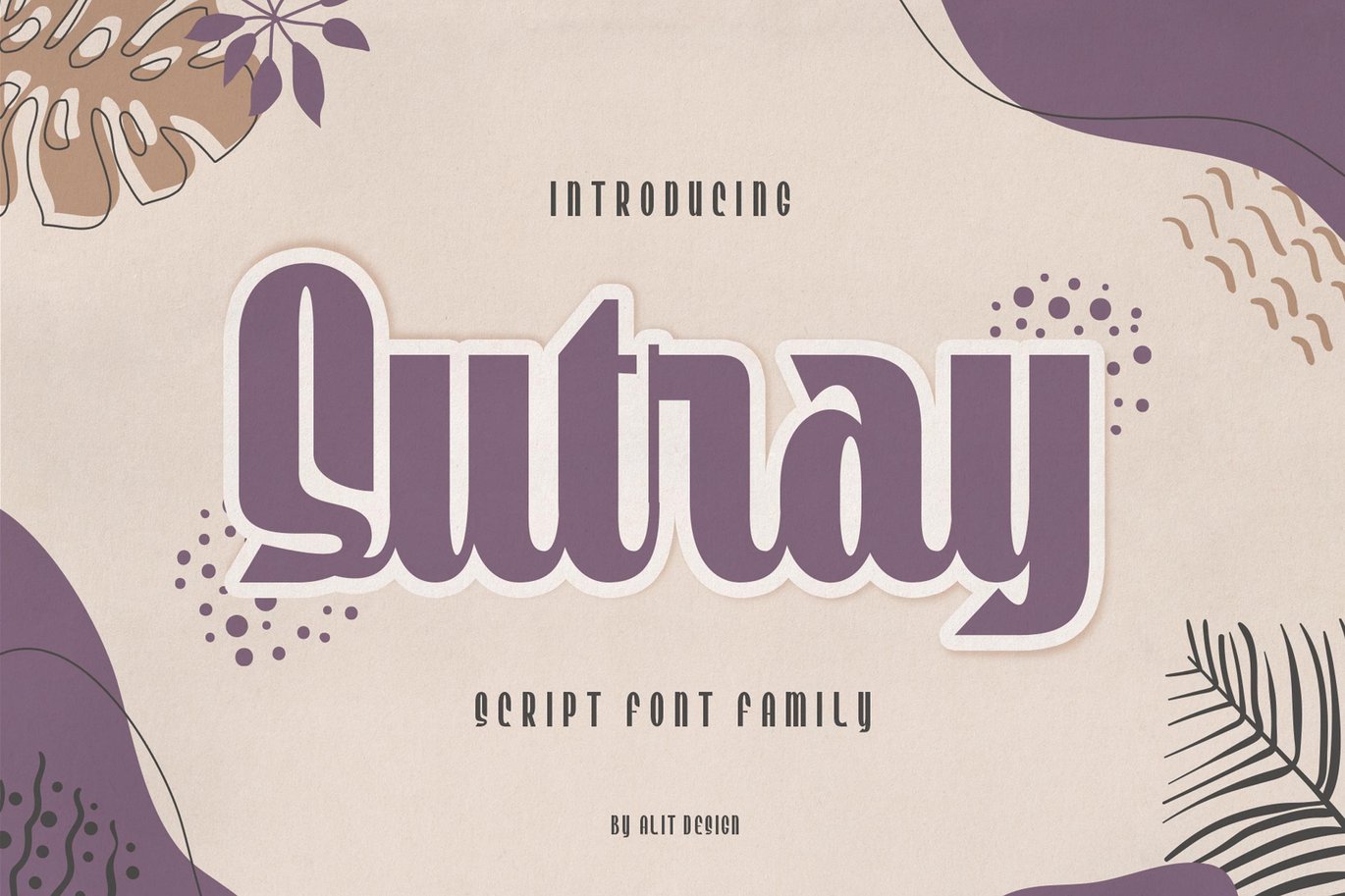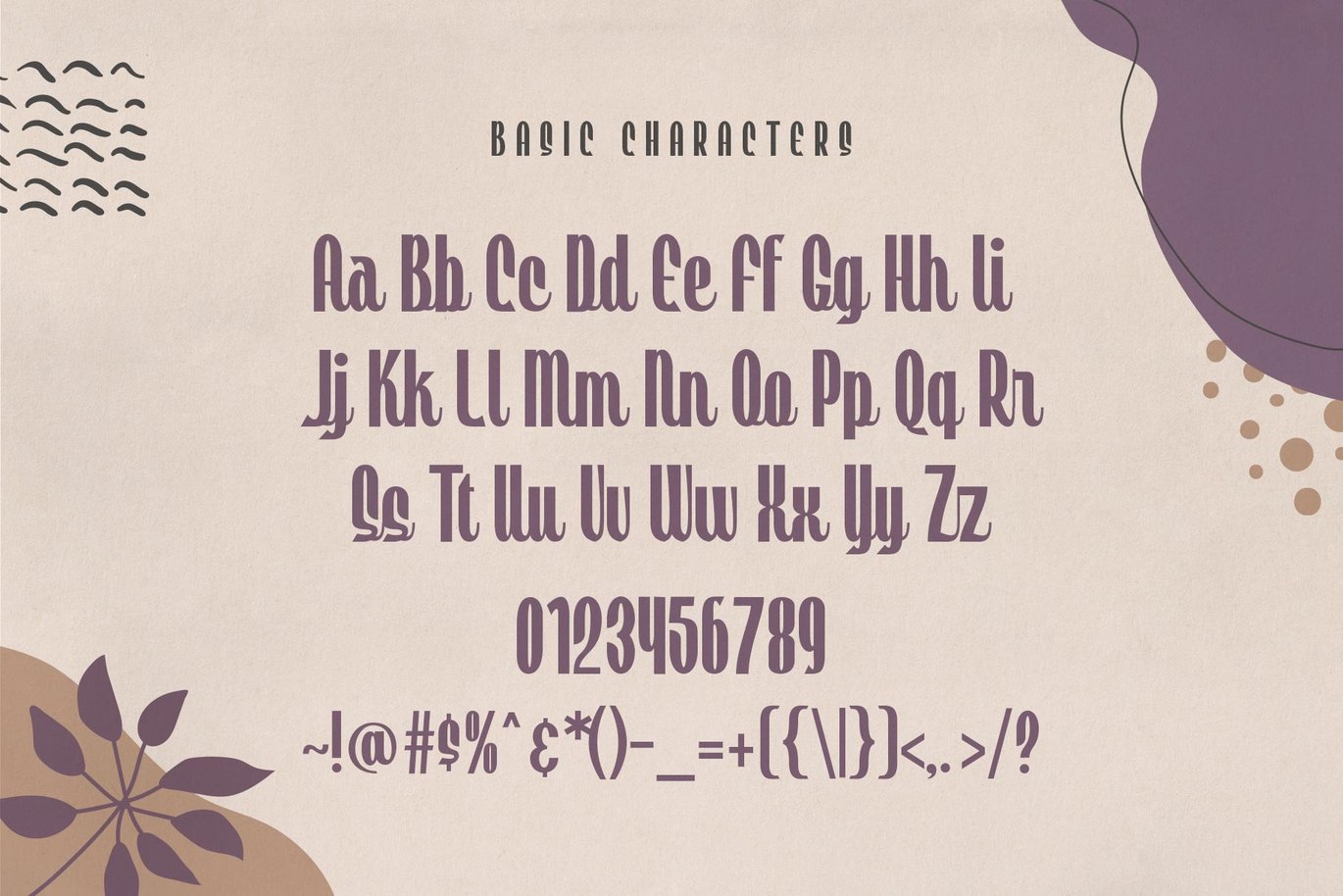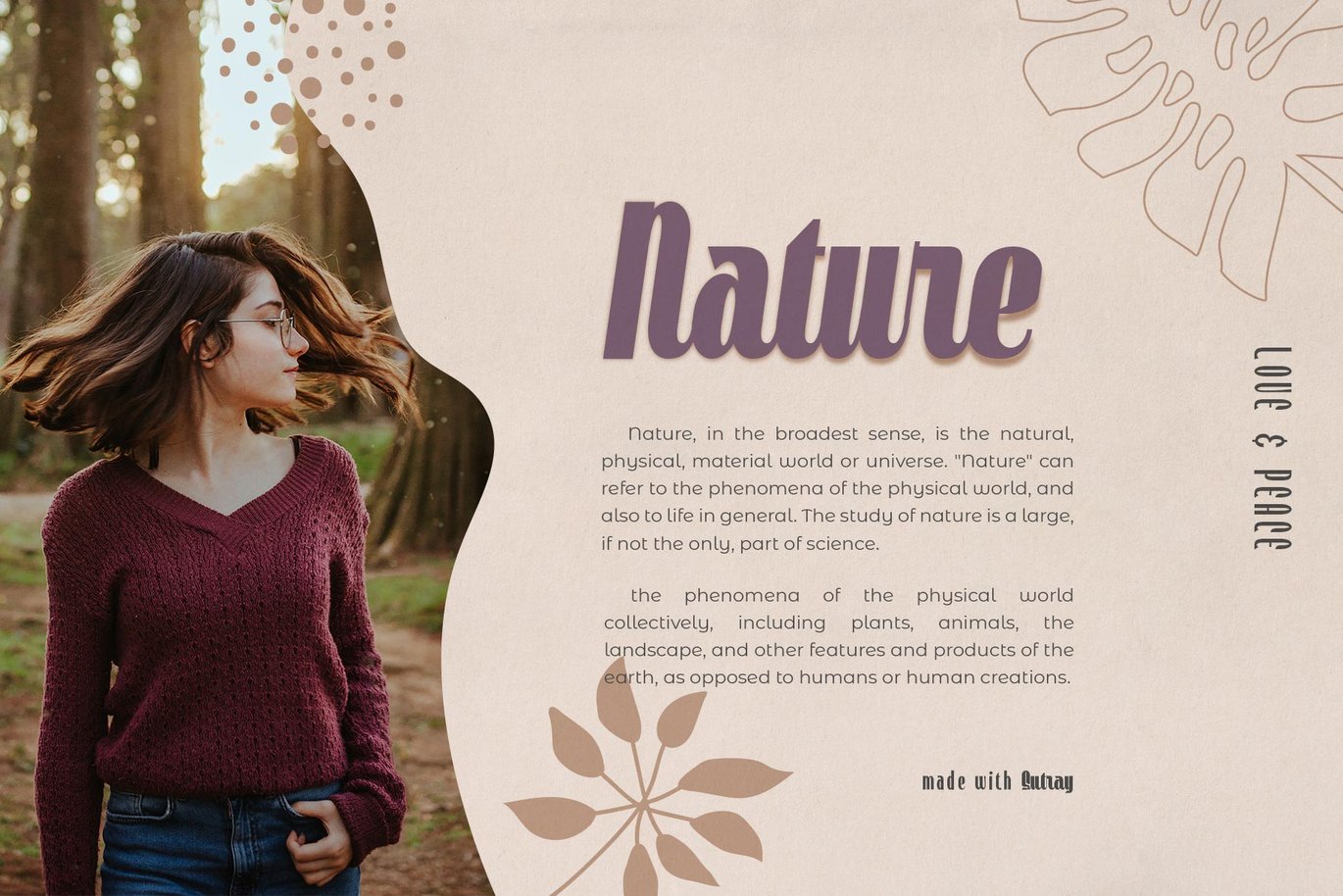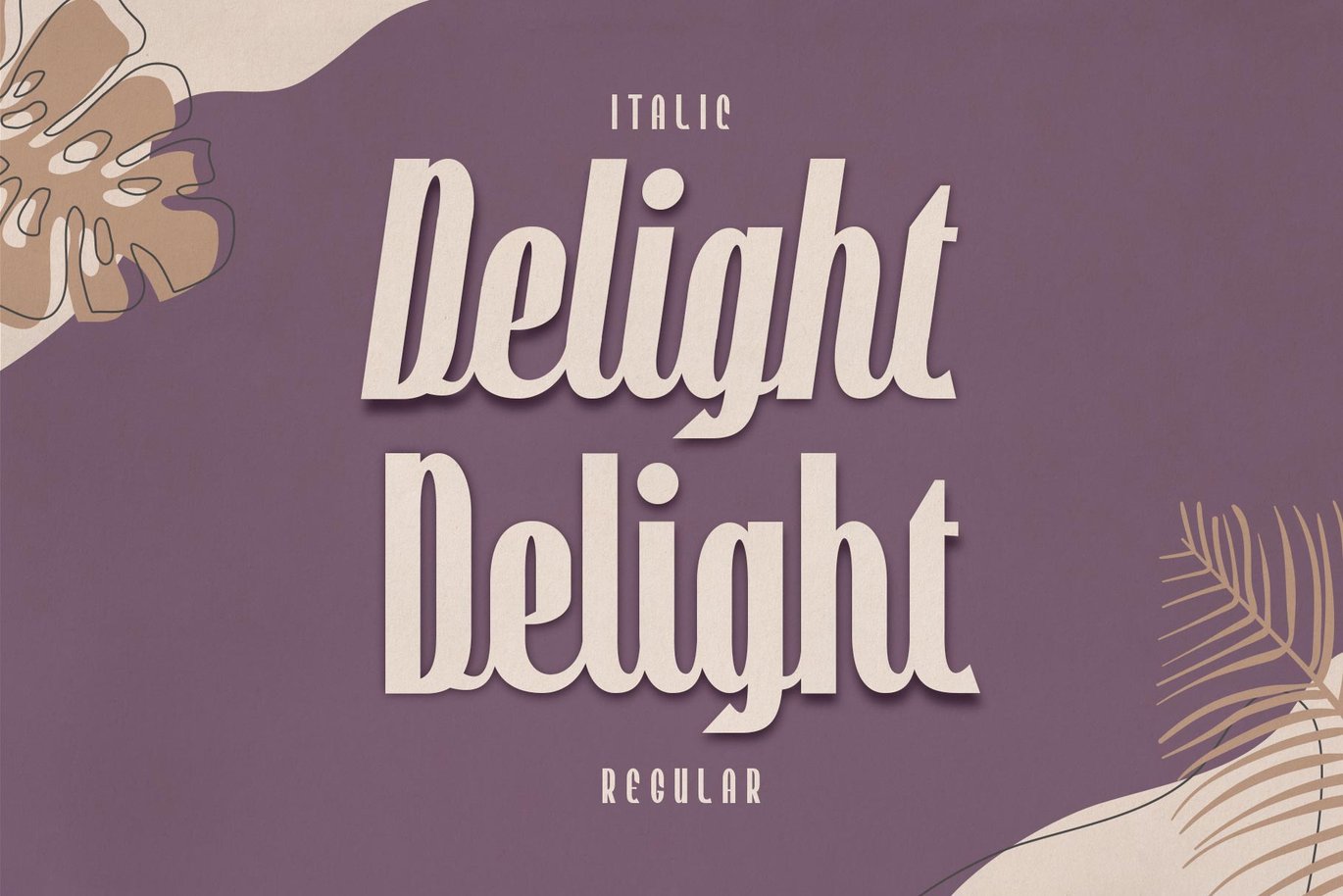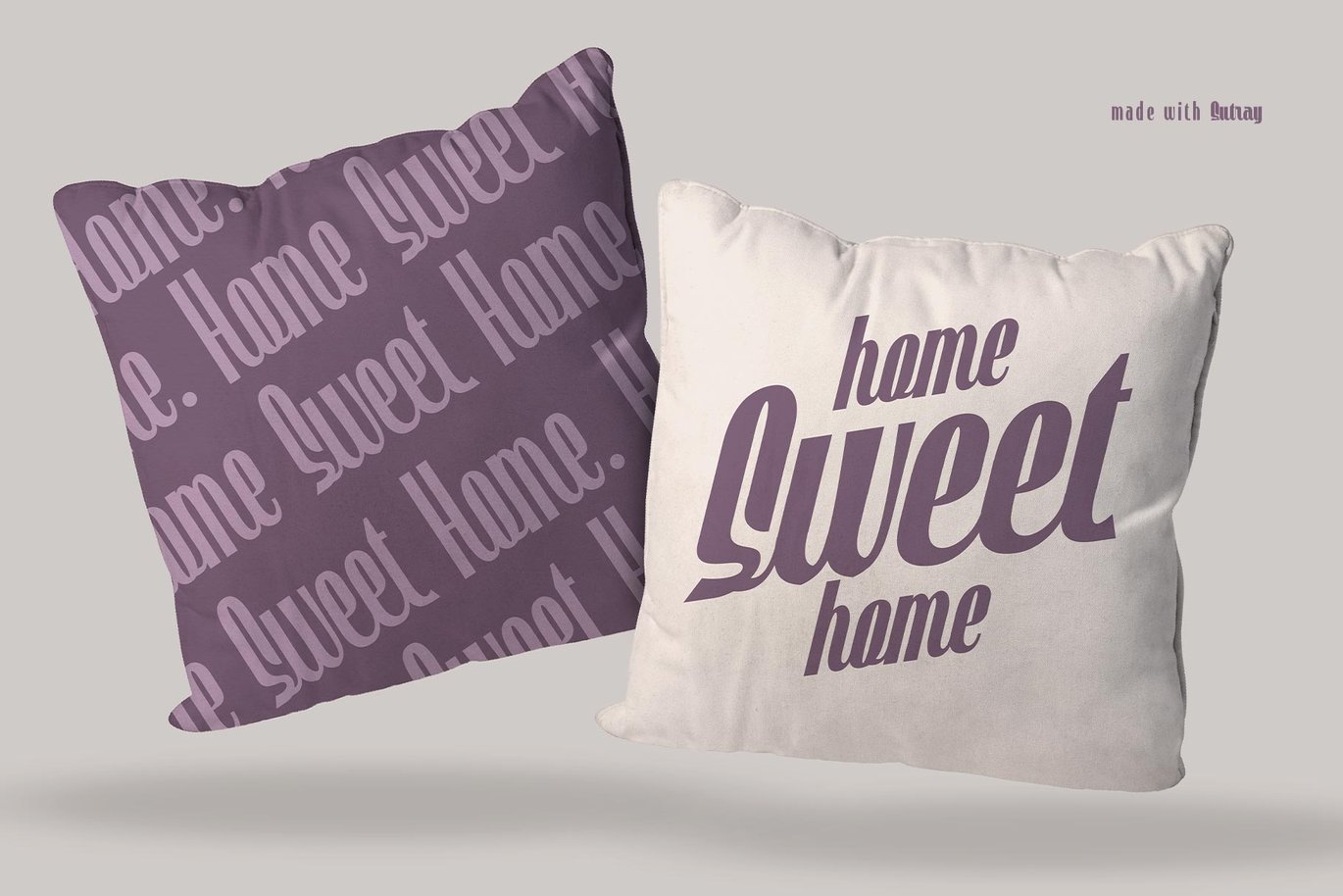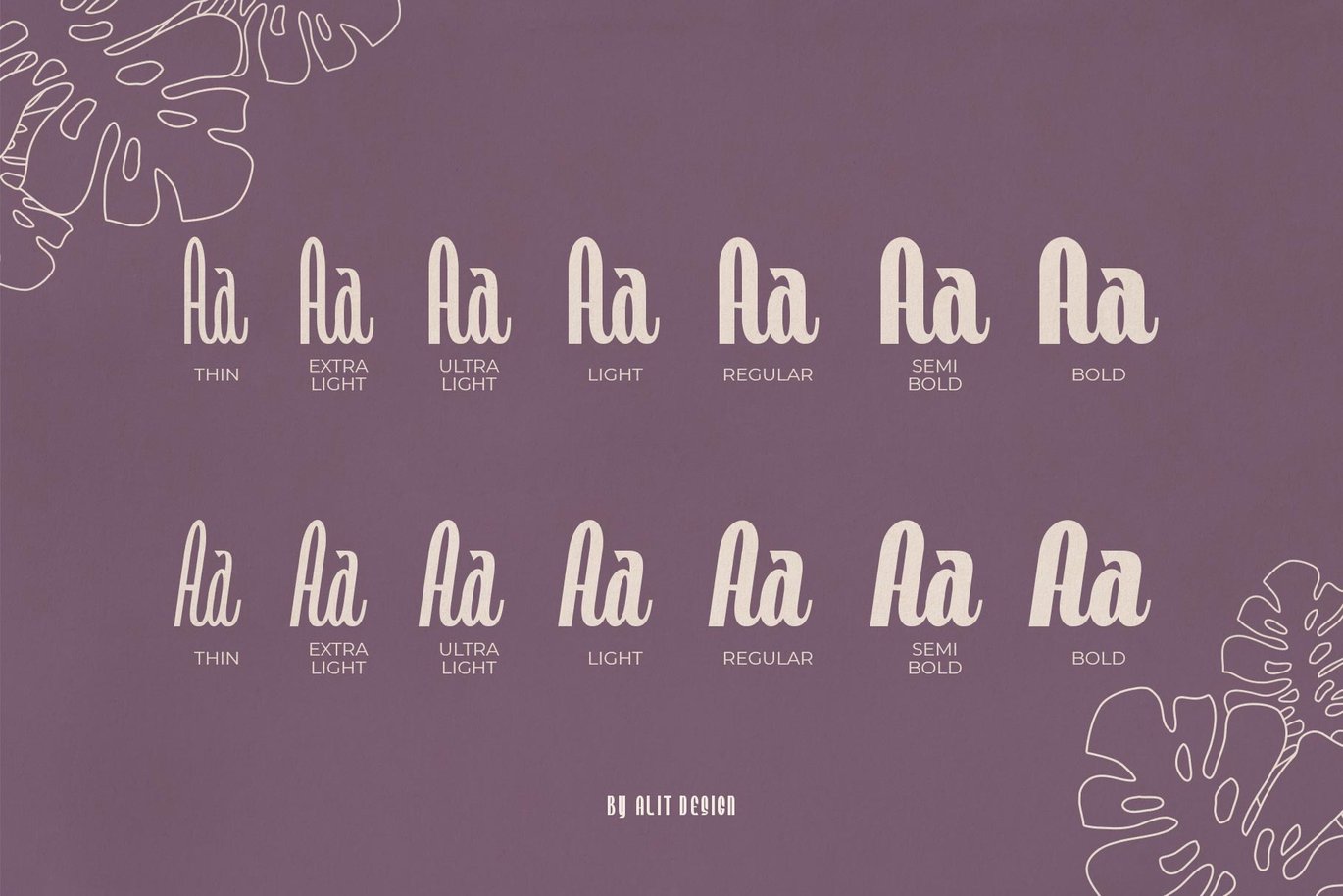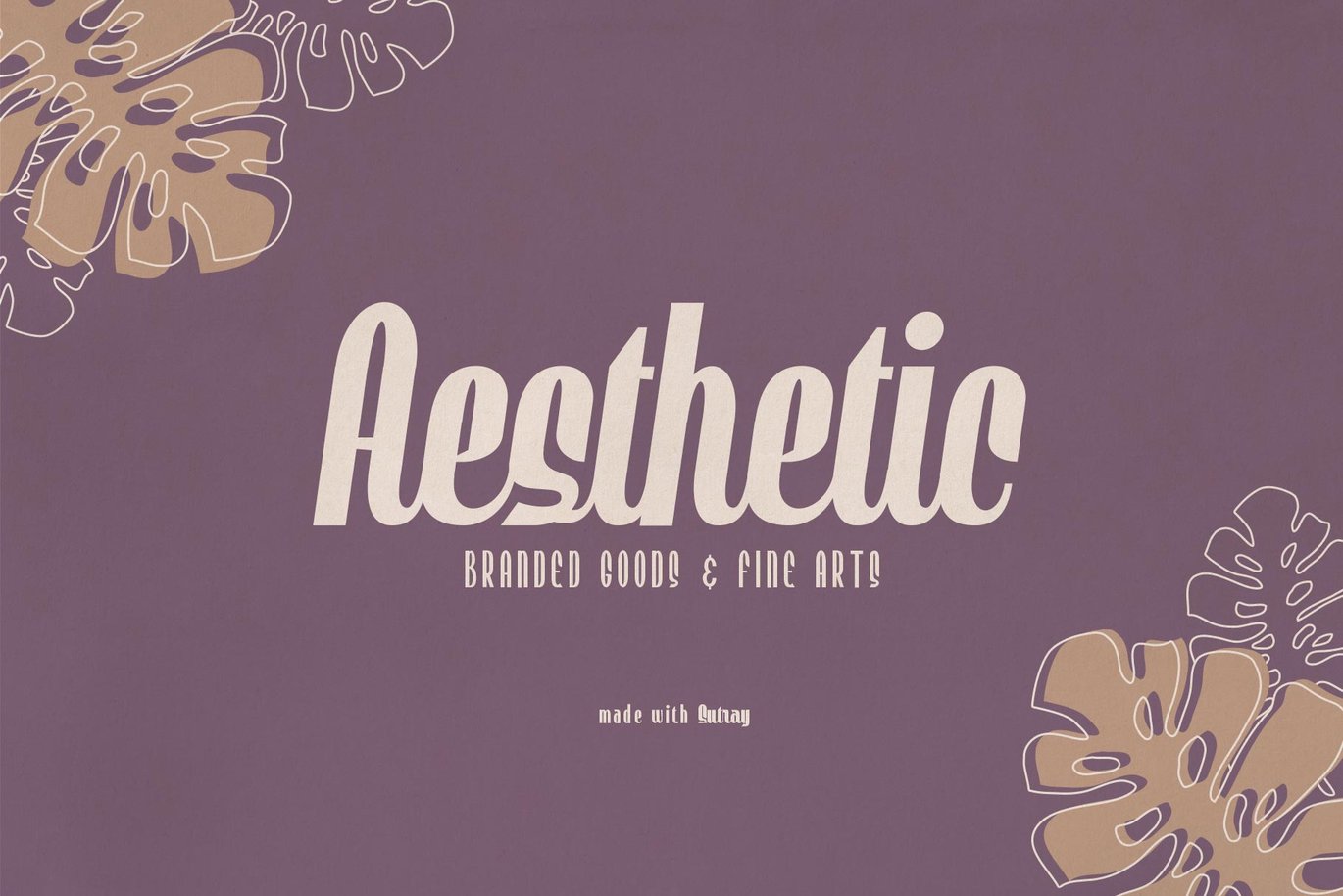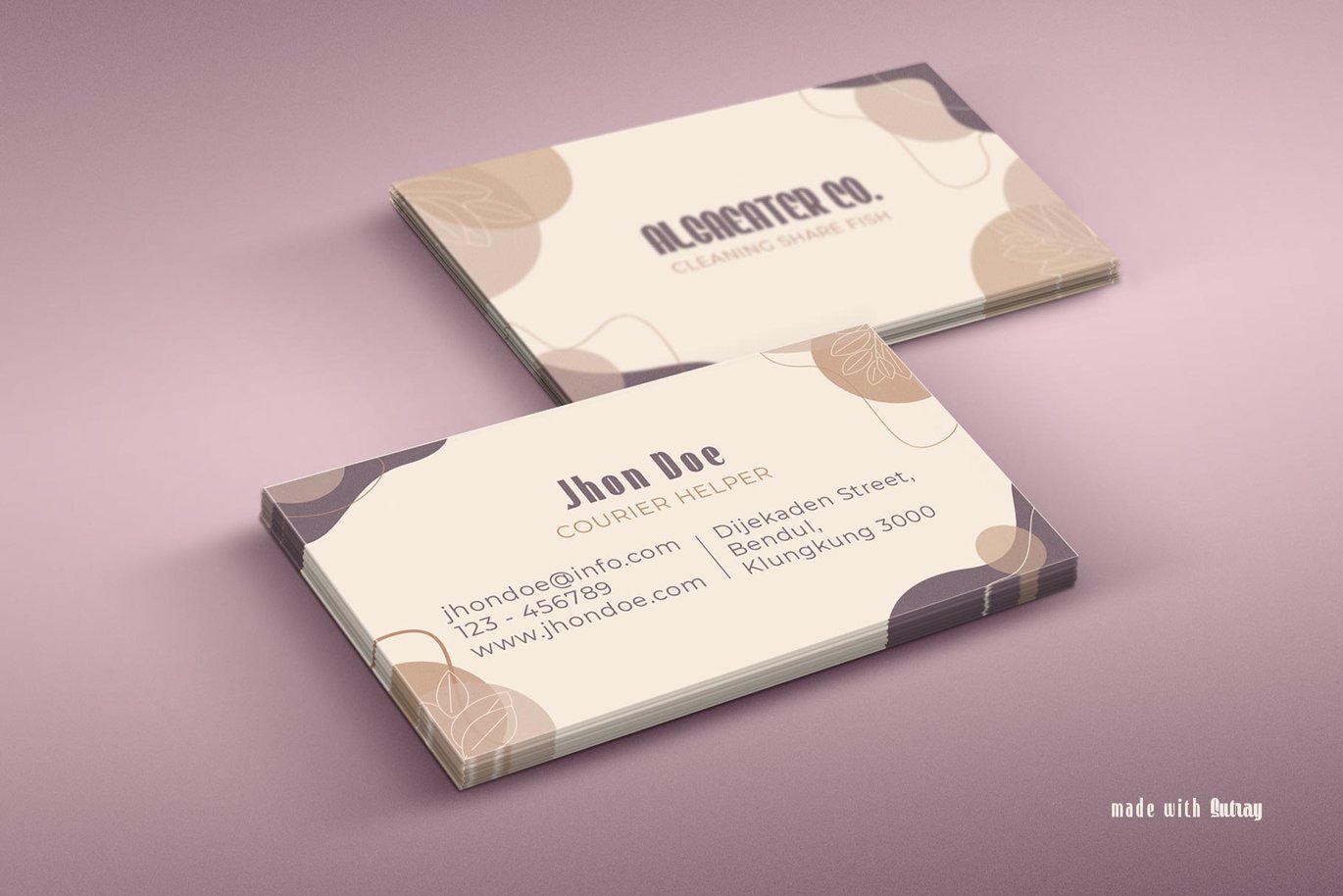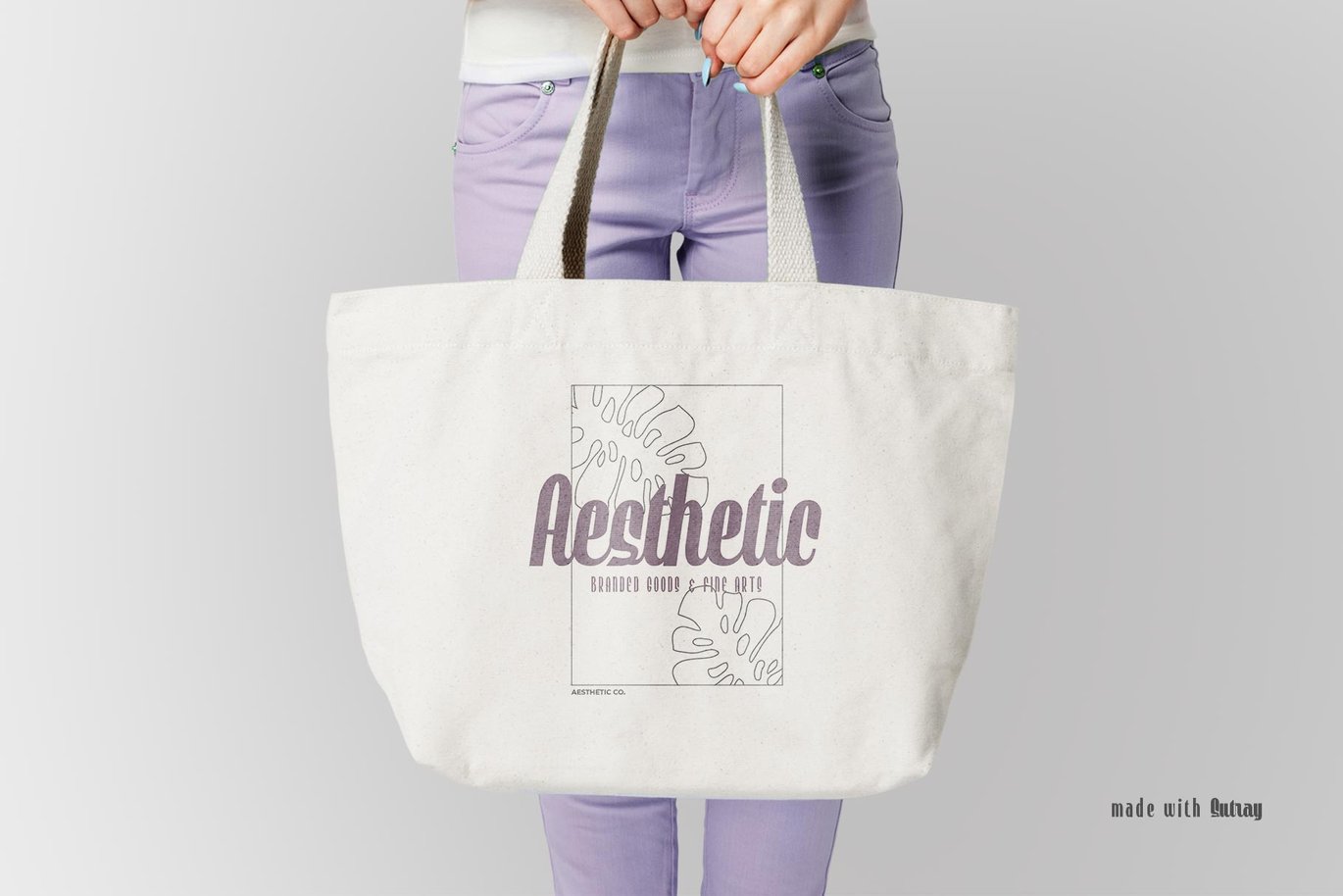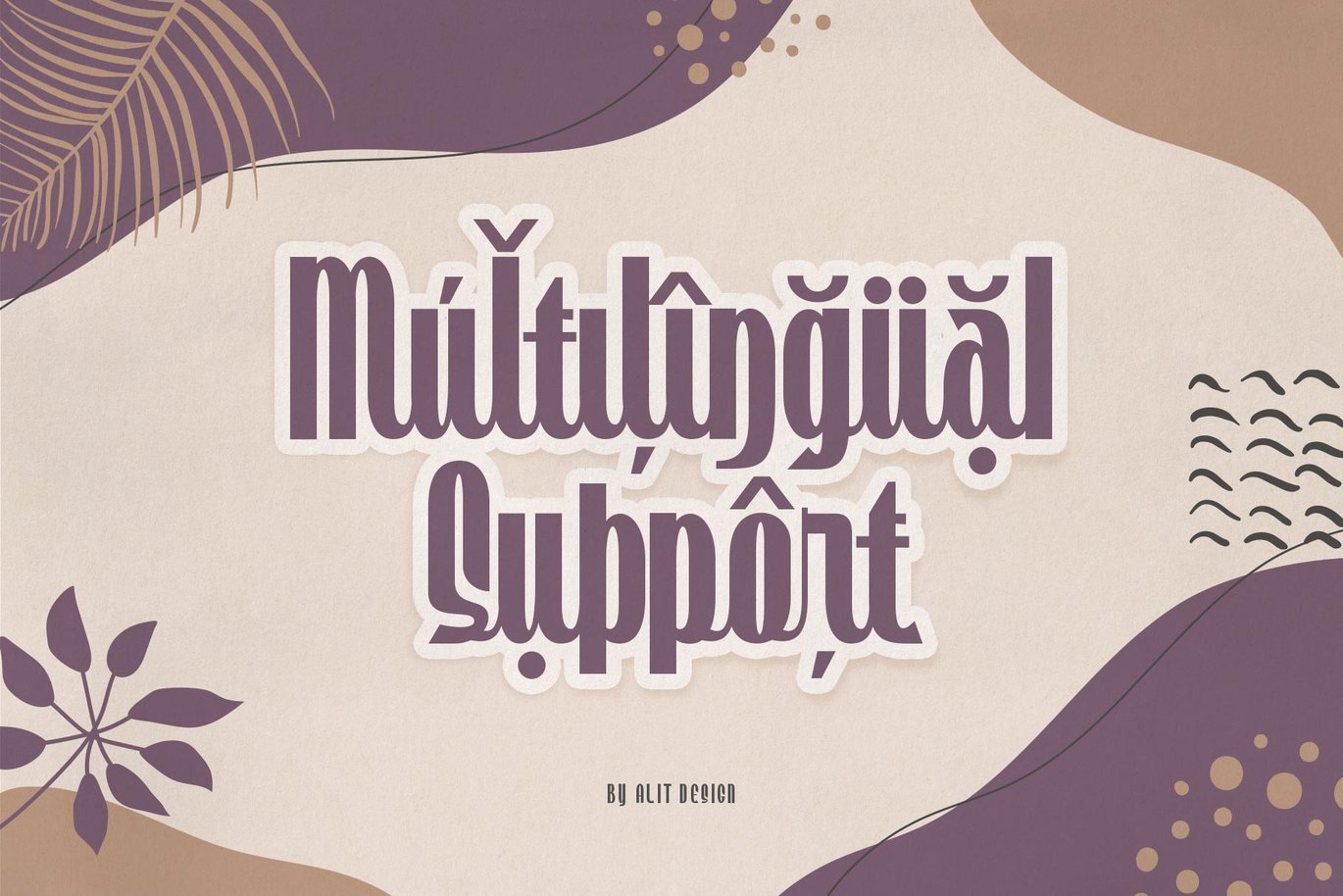
Sutray Typeface
Introducing Sutray Typeface
Sutray Typeface has a script style with a retro theme that is unique and cool. This font when used for making poster designs, logotypes, text headers and magazine covers is very attractive because of its uniqueness. Sutray Typeface also have 7 families from Thin to Bold. So designers or non-designers if using the Sutray Typeface can be very easy to use and choose a family that is suitable for the design to be made.